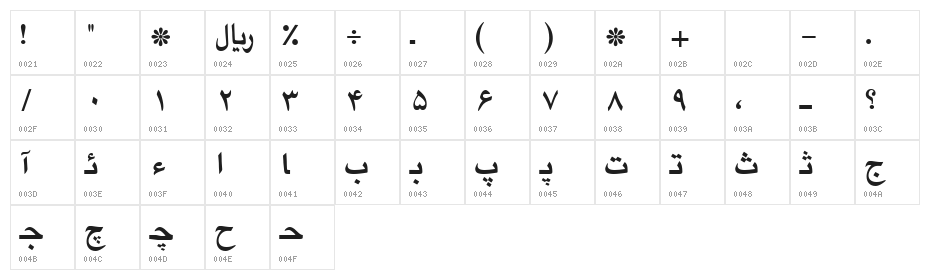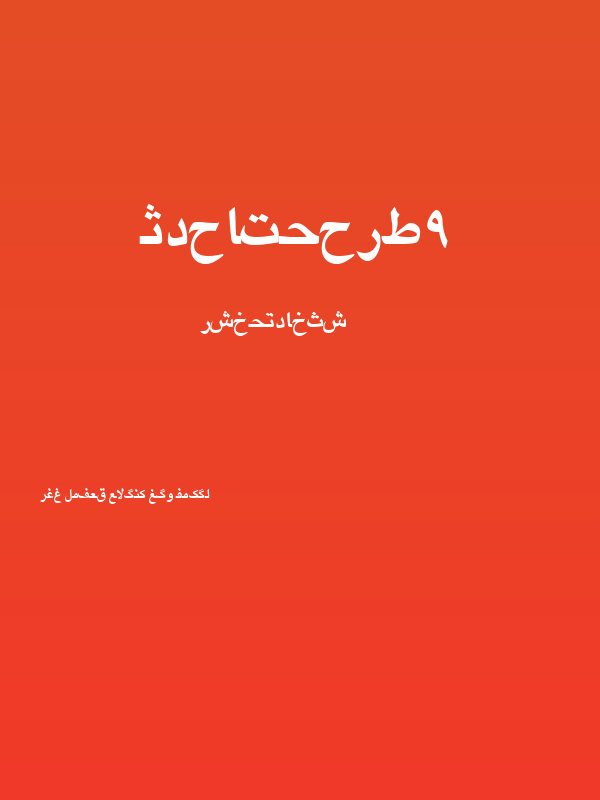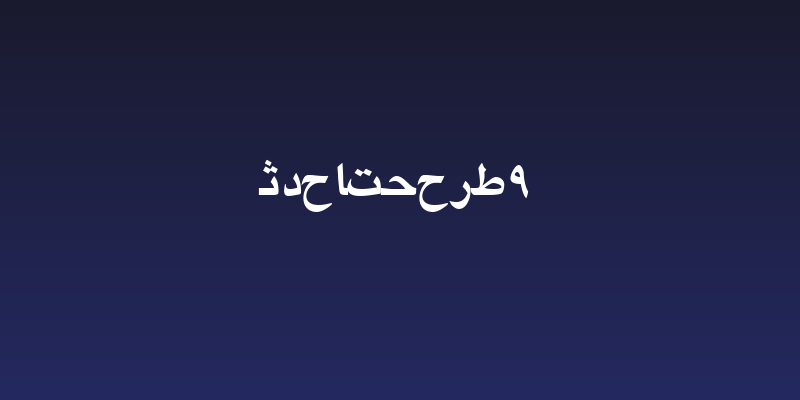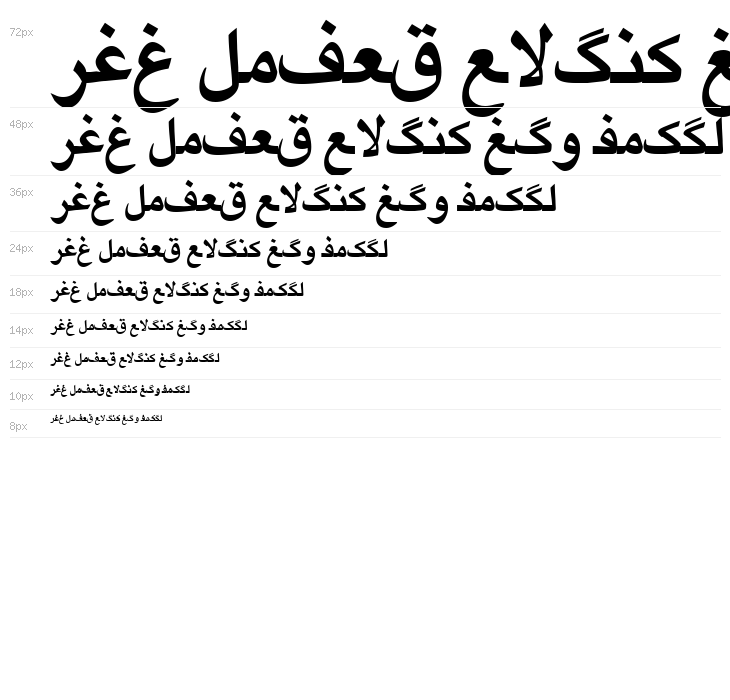
Irnafont_9 Font
Irnafont_9 Description
This font features a bold and striking design, characterized by its thick strokes and strong presence. The characters are well-defined with a modern aesthetic, making it suitable for impactful headlines and titles. The font maintains a consistent weight throughout, providing a uniform appearance. Its design includes a mix of sharp and rounded edges, adding a touch of elegance while retaining a contemporary feel. The spacing between characters is balanced, ensuring readability without compromising on style. This font is versatile, suitable for both digital and print media, and can be used to convey a sense of authority and sophistication.